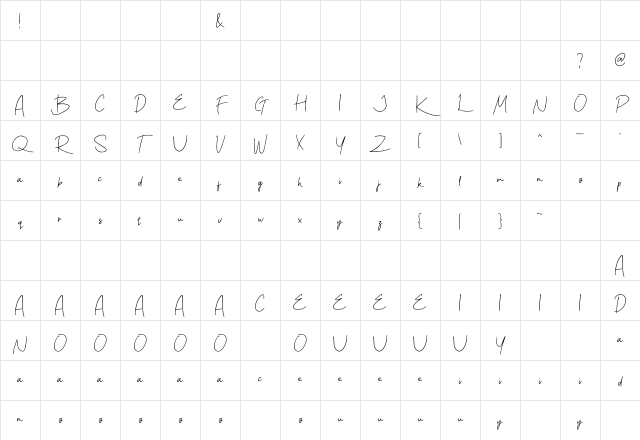
Complete Minimalisty Demo Regular glyph index. Displaying only characters natively supported by Minimalisty Demo Regular font.
Minimalisty Demo is a composed and adaptable typeface that performs quietly and consistently across a wide range of design contexts.